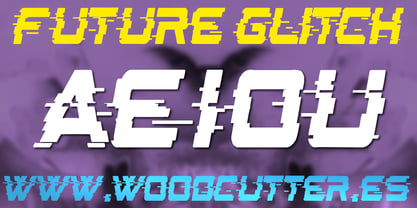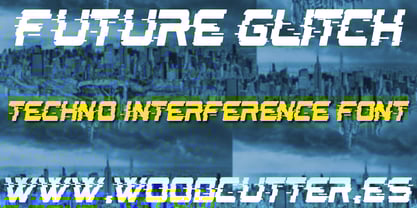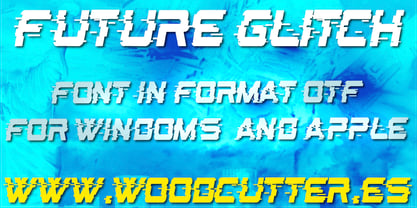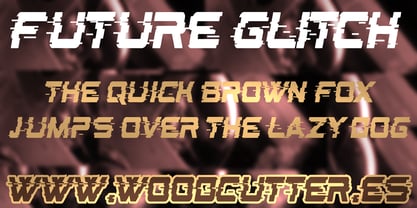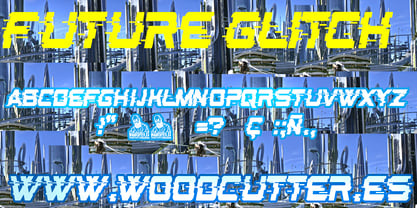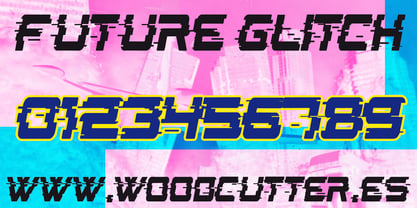
Future Glitch
by Woodcutter
The Future Glitch Font Family was designed by Jordi Manero and published by Woodcutter. Future Glitch contains 1 styles.
The “Future Glitch” typeface is an uppercase font with a strong techno-futuristic identity, perfect for conveying visual chaos, distortion, and broken technology. Each character appears to be affected by digital signal interference, as if caught in a corrupted transmission or glitching display. The letters are fragmented, displaced, stretched or duplicated, replicating the visual artifacts typical of digital glitches, resulting in an unsettling, modern, and experimental feel.
“Future Glitch” is ideal for projects with cyberpunk, post-apocalyptic, or sci-fi aesthetics, evoking broken digital worlds, unstable realities, and out-of-control technology. Basic geometric shapes remain subtly visible beneath the distortion, preserving controlled readability amidst chaos. It’s perfect for eye-catching headlines, electronic music posters, video games, futuristic series, or bold experimental design.
This font transforms any text into a visual experience. With its unstable energy and glitchy digital aesthetic, “Future Glitch” represents an imperfect future — one full of noise, interference, and unique graphic potential.